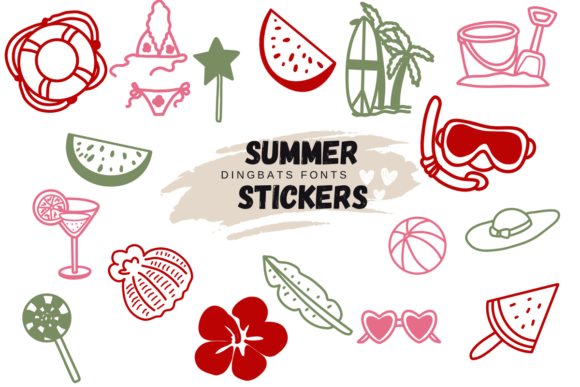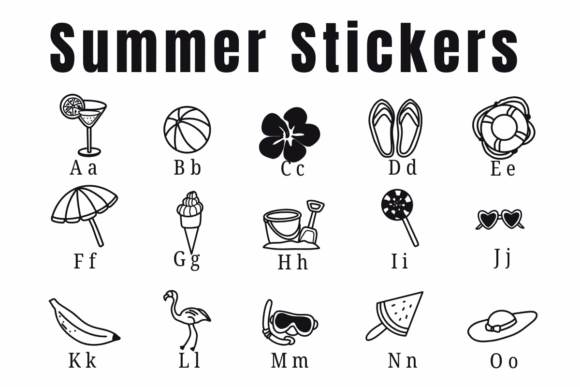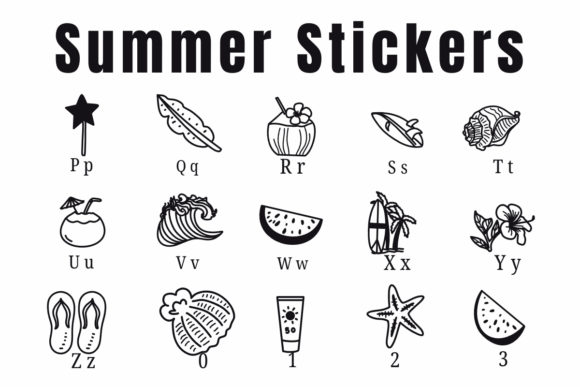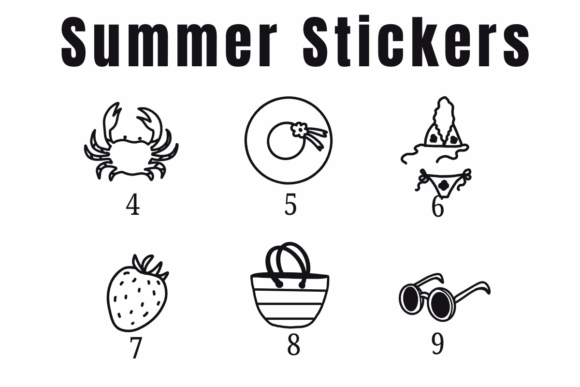
Summer Stickers Font
About the Summer Stickers Font
Elevate your designs with Summer Stickers Font, a font that combines sophistication with readability. Summer Stickers
is a delightful dingbat font packed with playful summer-themed icons. From palm trees to popsicles, swimsuits to seashells, this collection is perfect for crafting vibrant vacation projects, kids’ activities, beach party invites, or planner designs. Easy to use and full of charm, these vector-style symbols will add a splash of summer to any creation.